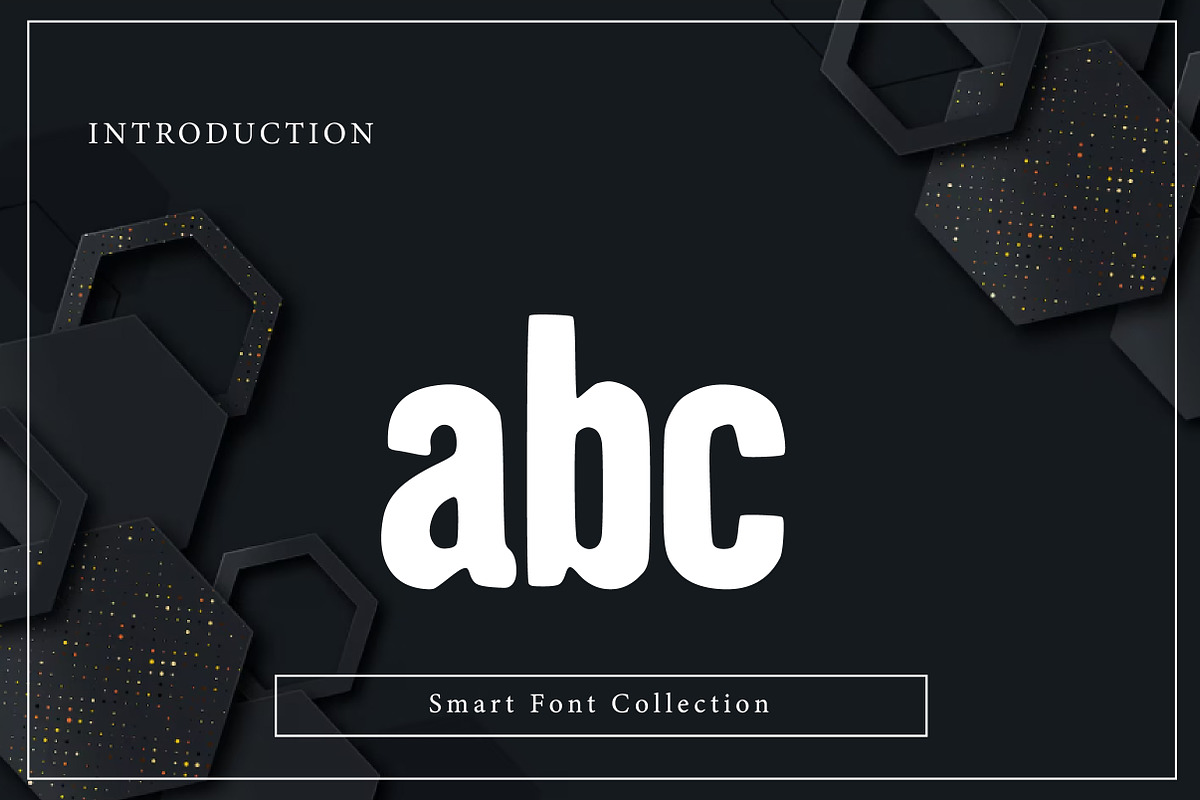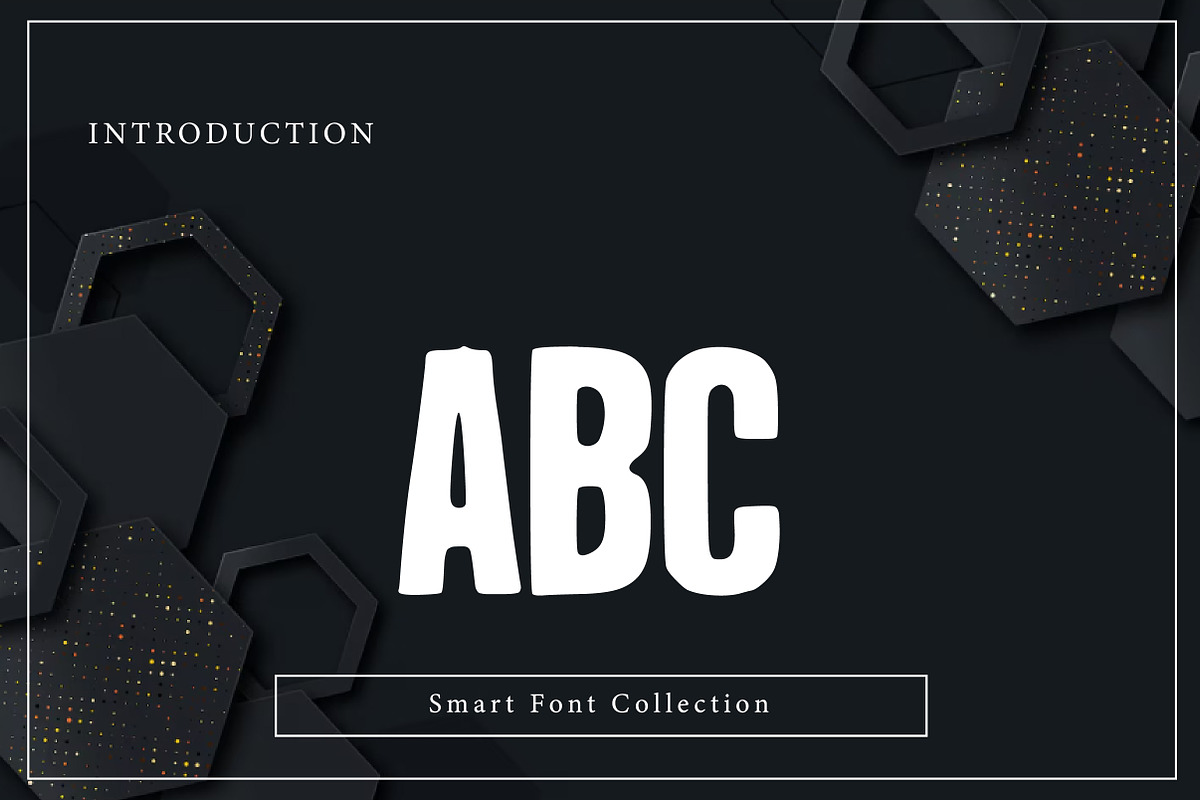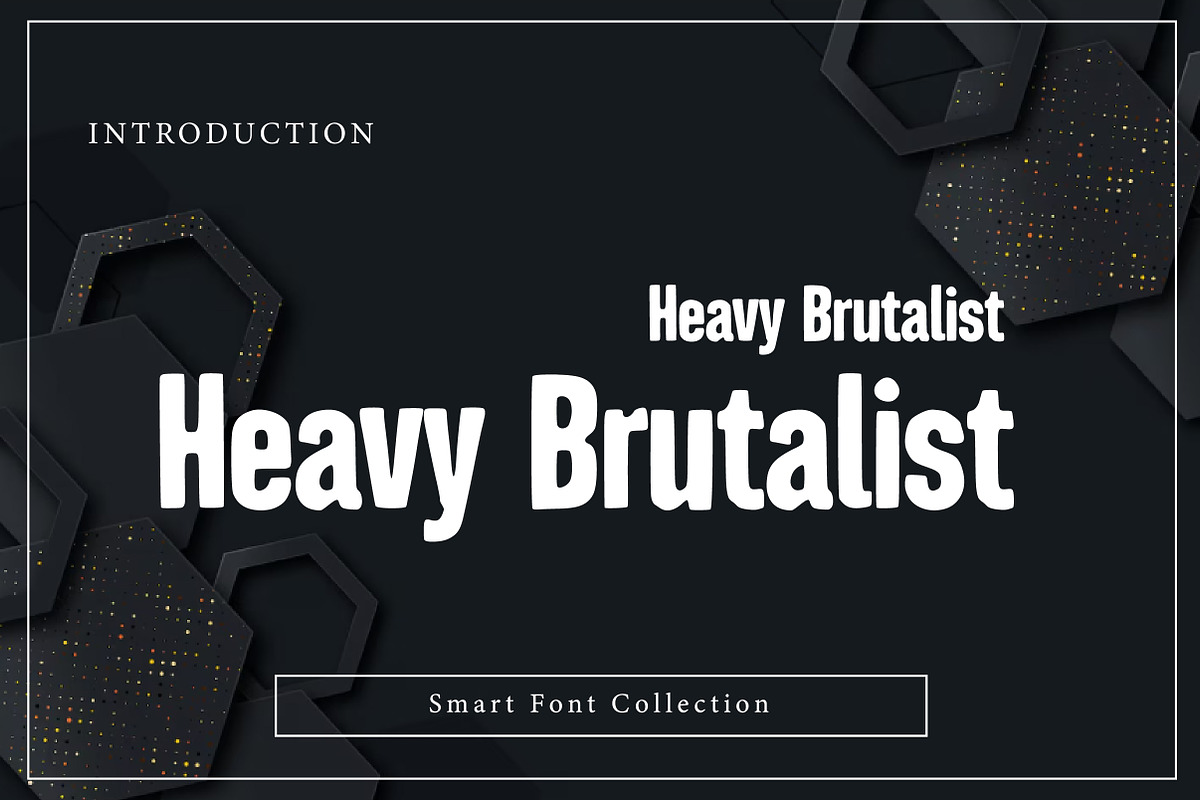
Heavy Brutalist
Heavy Brutalist is a bold and powerful display font inspired by brutalist graphic design and modern industrial typography. Featuring thick strokes, strong proportions, and a raw minimal aesthetic, this font is perfect for posters, branding, editorial headlines, packaging, signage, album covers, streetwear designs, and modern layouts. Heavy Brutalist delivers maximum impact with a confident contemporary attitude, making it ideal for bold typography projects that demand strength, clarity, and urban style.